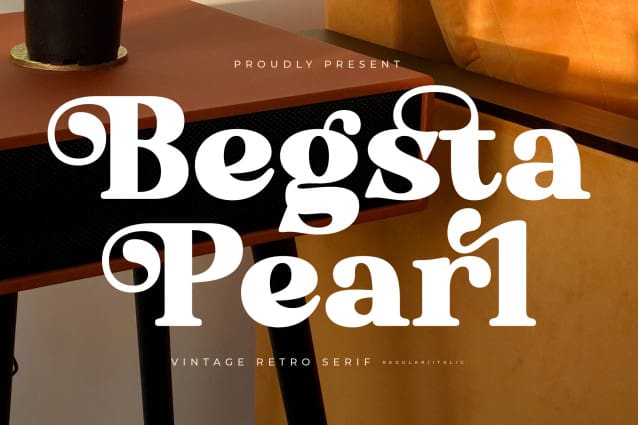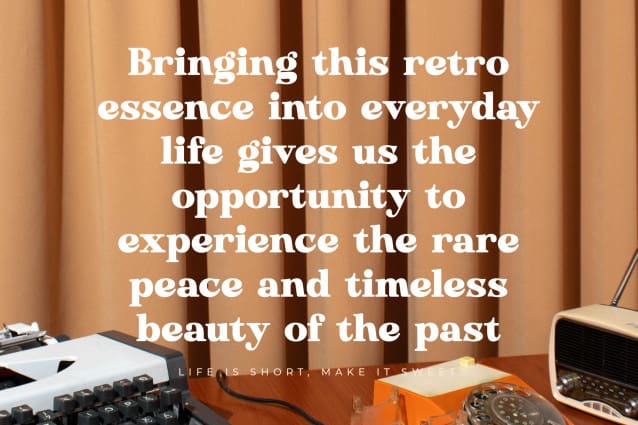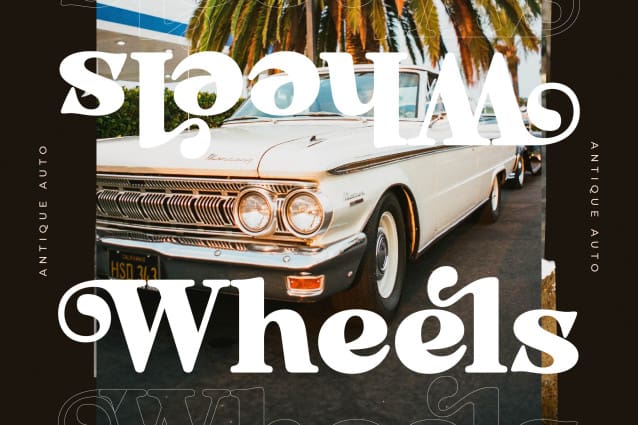
Begsta Pearl Font
Begsta Pearl Font – Vintage Retro Serif , from Letterena, is a Luxury Serif font, suitable for any projects such as: logos, branding projects, homeware designs, product packaging, mugs, quotes, posters, shopping bags, t-shirts, book covers, name card, invitation cards, greeting cards, label, photography, watermark, special events, and all your other luxury and beautiful projects that need a Luxury Serif taste.